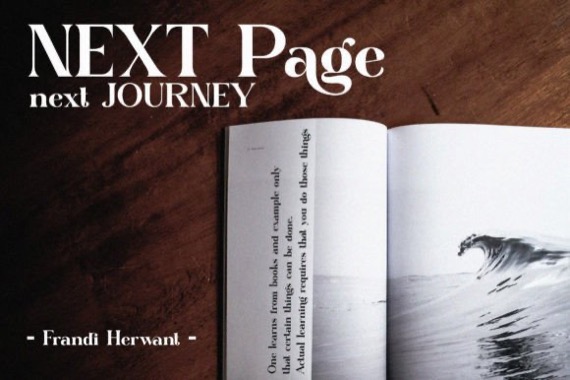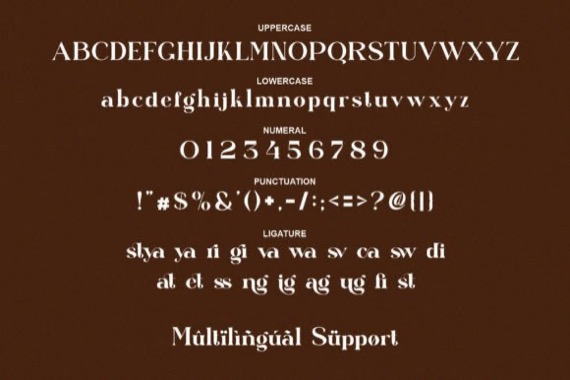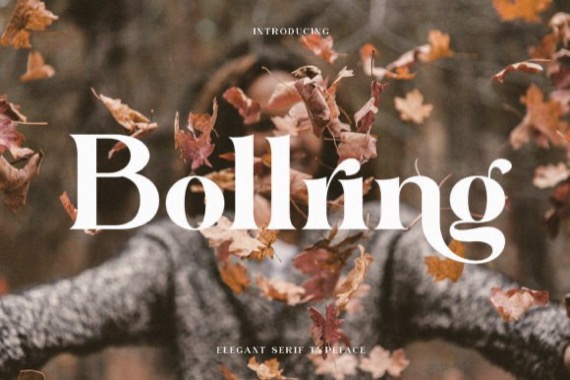
Introducing Bollring Font by Alfinart, the ultimate font for all your modern design needs. It’s a stylish serif font exuding timeless sophistication and modern elegance. With sleek lines and balanced proportions, it lends a touch of refinement to any design project. Ideal for editorial layouts, branding, and luxury packaging, Bollring elevates typography with its classic yet contemporary aesthetic.
Bollring Serif Font